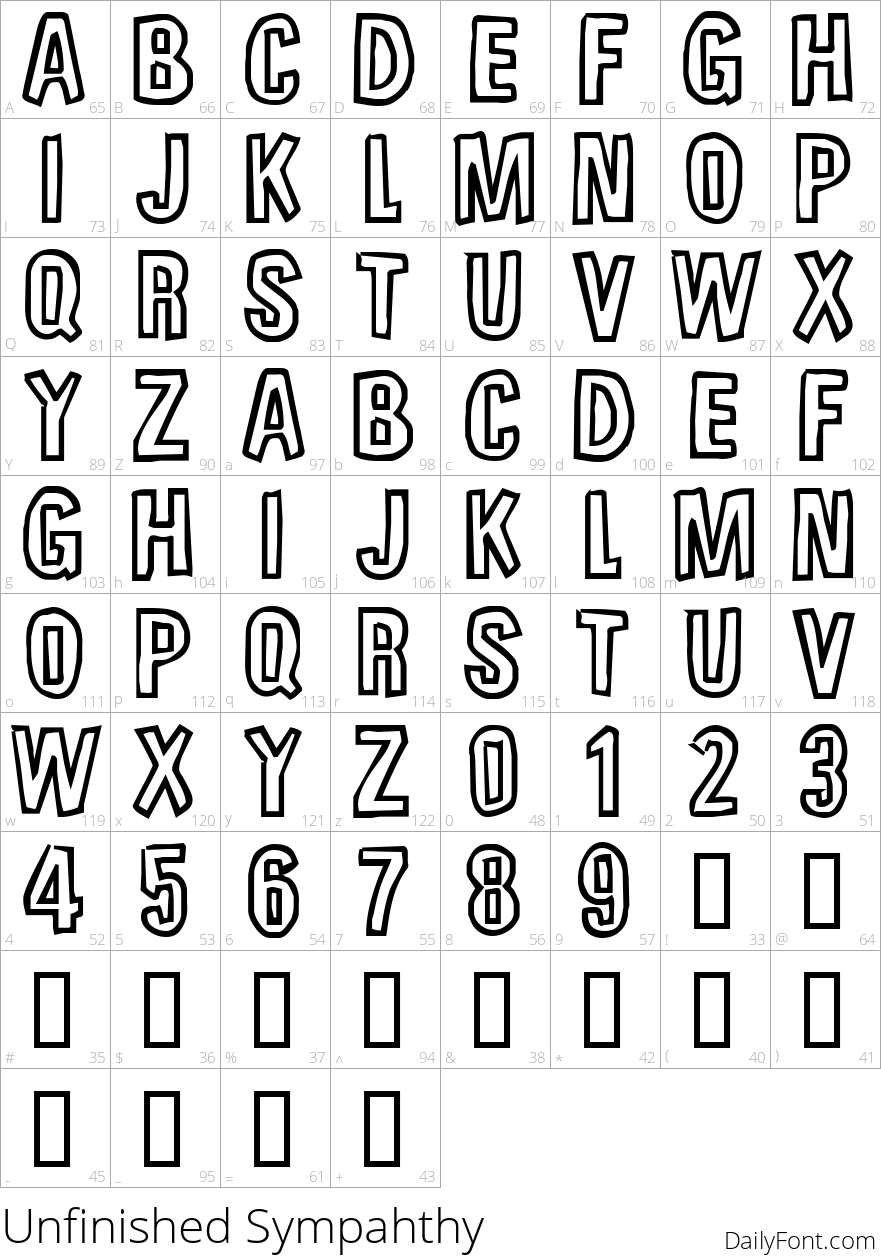
Unfinished Sympahthy
Bold hollow outline caps with a hand-drawn wobble
Unfinished Sympahthy draws each letter as a thick, hand-inked outline, left hollow rather than filled in, with a slightly wobbly, imperfect line that feels sketched rather than printed. It reads as bold and casual at the same time.
Use it for poster titling meant to be colored or filled in, punk and DIY flyer graphics, doodle-style branding, and any design that wants a hand-drawn outline look. Free to download for personal use.